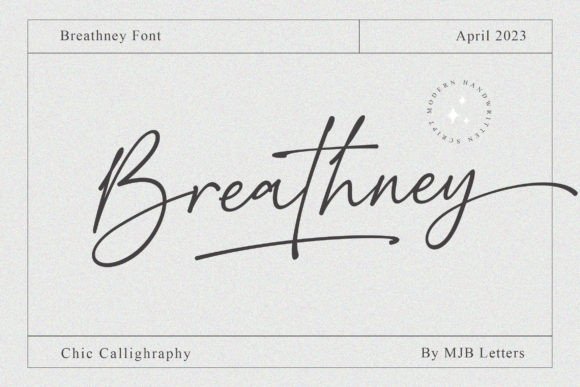
Breathney Font: Chic Calligraphy Script for Wedding & Logo Design
About the Breathney Font
Add a touch of class to your work with the Breathney Font, a truly exceptional typeface. Breathney is a beautiful, natural handwritten font that exudes charm. With its soft, curved lines, it captures the uniqueness of human handwriting, adding a personal touch to graphic designs. Ideal for feminine, friendly projects like wedding invites, logos, and posters, Breathney brings warmth and authenticity. Enhance your designs with their gentle, organic aesthetic, conveying a heartfelt message.
Breathney’s gentle curves and organic forms make it perfect for projects requiring a touch of handwritten authenticity. It shines in applications like logos, wedding stationery, short quotes on social media, and packaging for artisanal products. However, its informal nature makes it unsuitable for large blocks of text or UI elements where readability is paramount.
Consider pairing Breathney with a clean sans-serif like Montserrat for a balanced contrast, or a delicate serif like Lora for a more unified, elegant feel. For a playful touch, a simple geometric sans-serif such as Roboto would also work well.
Breathney projects a friendly, approachable, and slightly feminine personality. It’s best suited for brands focused on warmth, craft, and personalized experiences. Avoid using it where a more modern, minimalist, or authoritative tone is required.
Breathney Font Usage Examples
Breathney Font Example